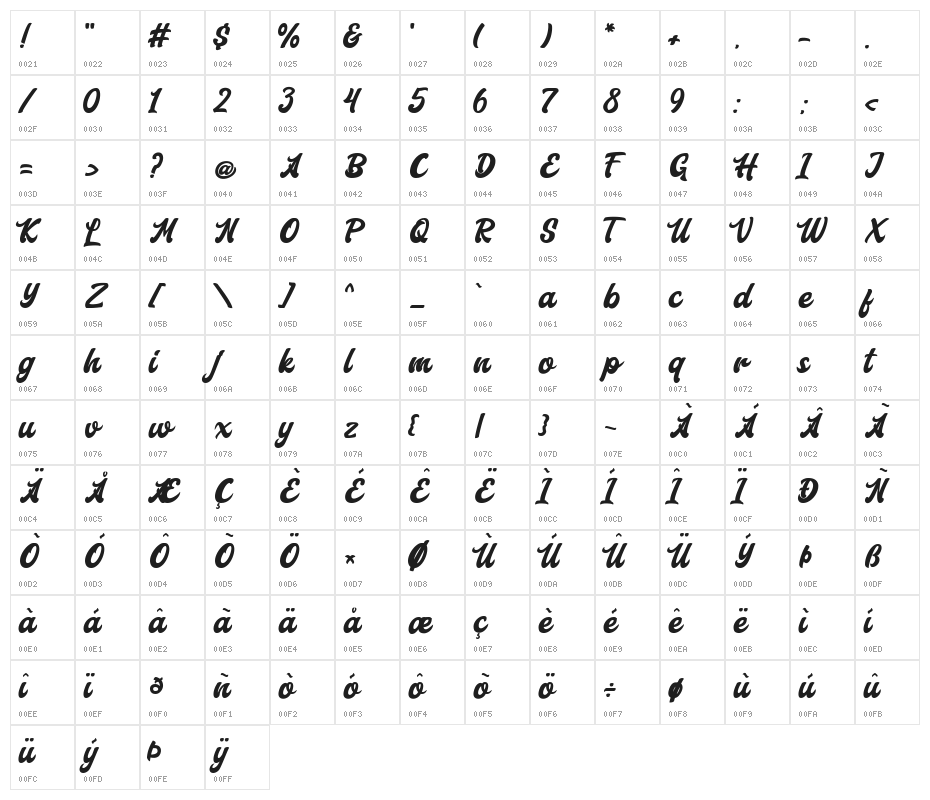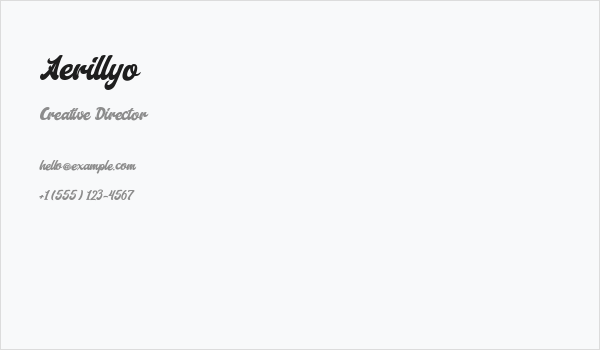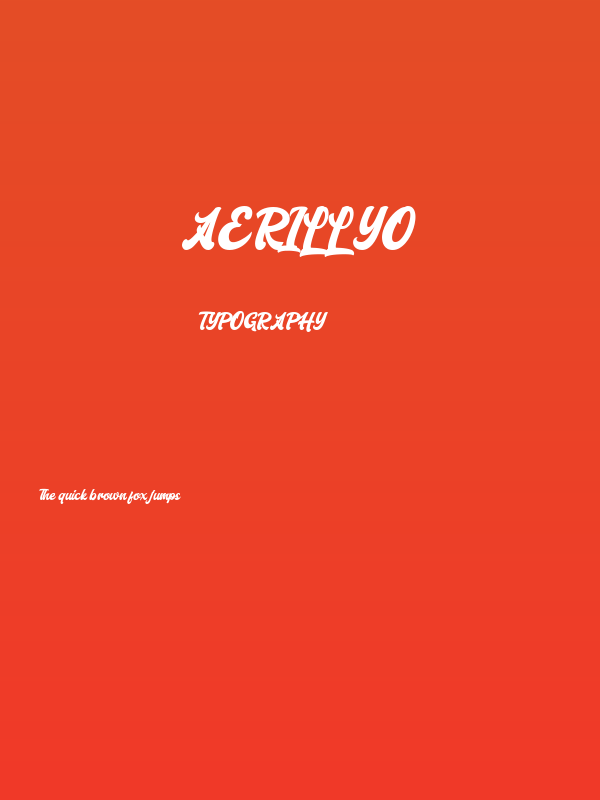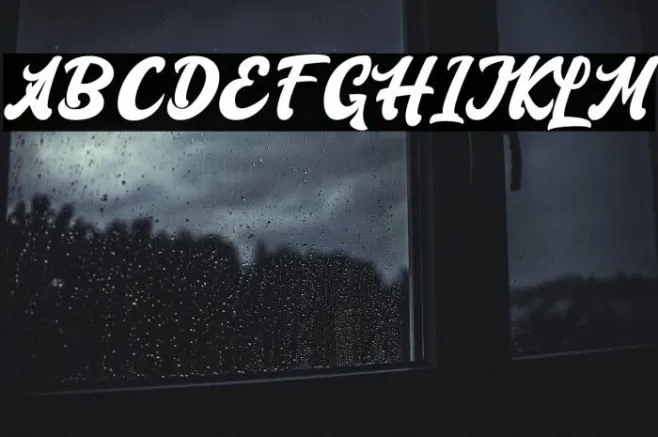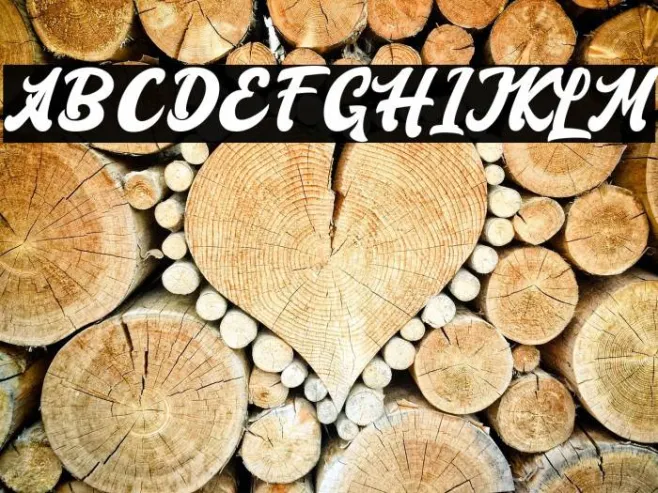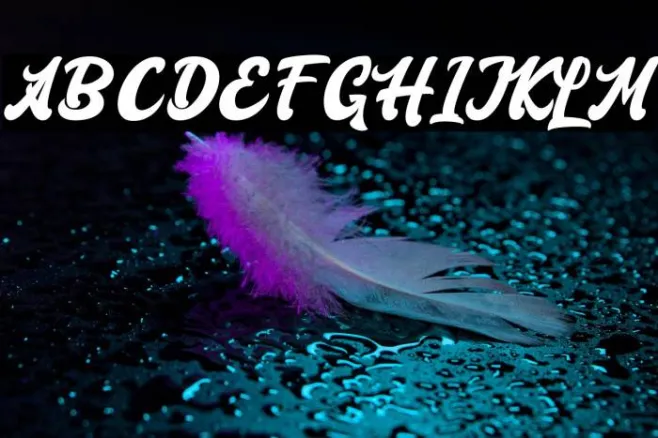
Aerillyo Font
Aerillyo Description
This font features a bold and expressive script style, characterized by its flowing, cursive letterforms. The uppercase letters are particularly ornate, with sweeping curves and flourishes that give a sense of movement and elegance. The lowercase letters maintain a consistent style, with rounded edges and a smooth, connected appearance. Numbers and special characters are designed to match the overall aesthetic, ensuring a cohesive look across all text. The font's bold weight and high contrast between thick and thin strokes make it highly legible while retaining its decorative charm.
| Use Case | Logos, Invitations, Greeting cards |
| Proposed Projects | Ideal for branding, invitations, greeting cards, and any project requiring a touch of elegance and personality. |